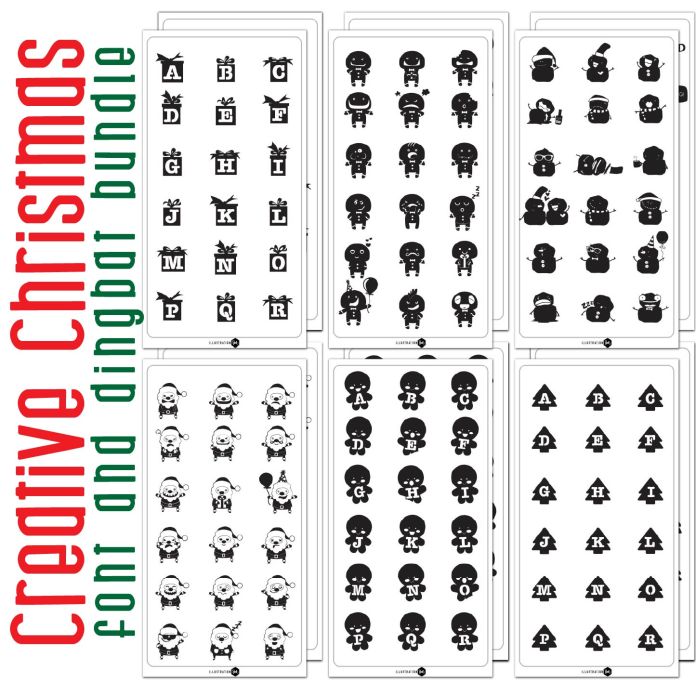
This bundle includes SIX font and dingbat fonts for one low price! You get three dingbats you get for 78 total images with 26 Santa Emoticons, 26 Gingerbread Emoticons, 26 Snow Brainer snowman images, and three fonts: Christmas Tree Stencil Font, Present Stencil Font and Gingerbread Stencil Font. Perfect for Christmas, cards, crafts, gifts, decor, classrooms, planner stickers, scrap book pages and more!